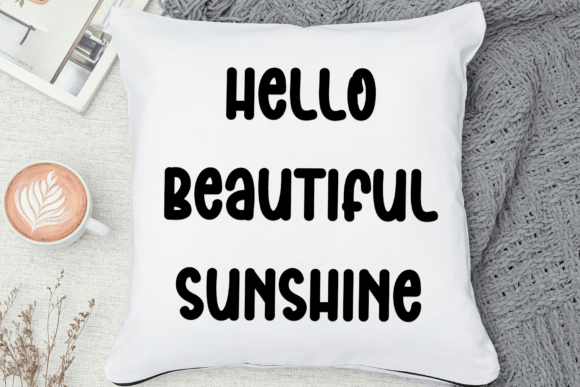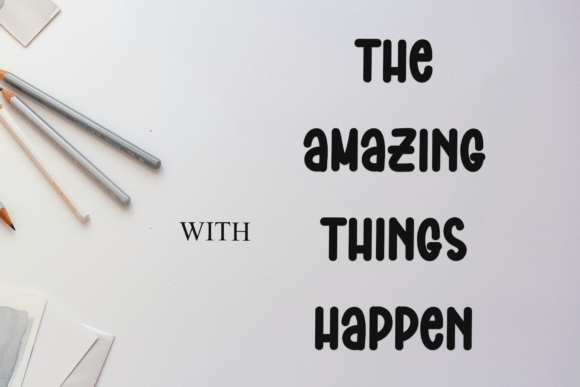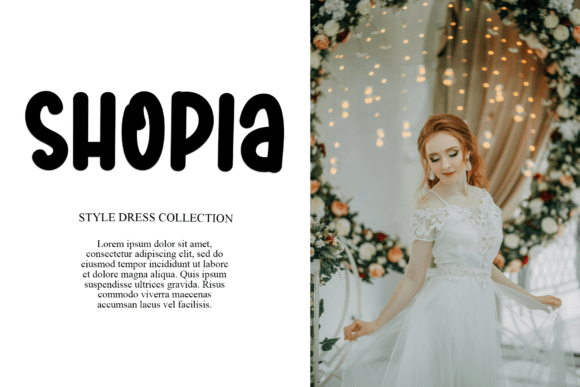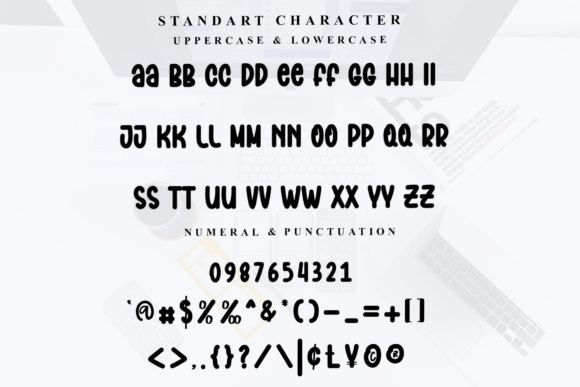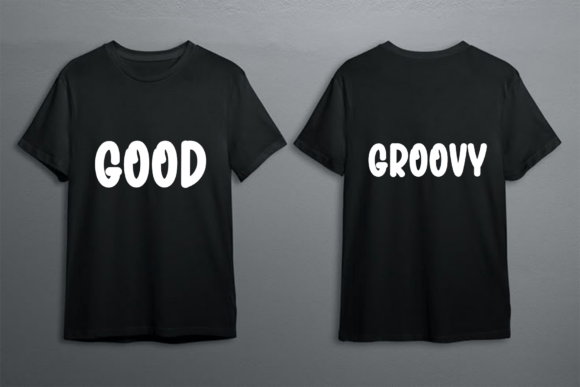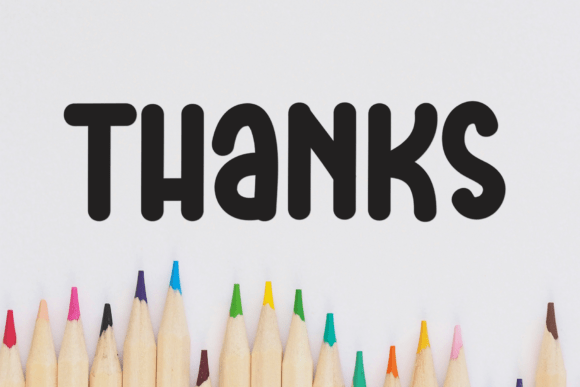
Introducing Booming Font: Elevate Your Designs with a Unique and Eye-Catching Style
In the world of design, fonts play a crucial role in conveying messages, expressing emotions, and creating lasting impressions. If you’re a designer, crafter, or creative enthusiast looking for a font that stands out from the crowd, look no further than Booming Font. This beautiful and eye-catching font is designed with a soft, unique touch that will take your designs to the next level.
The Distinctive Character of Booming Font
Booming Font boasts distinctive strokes that give it a special character, making it both meaningful and versatile for future use. Its unique design ensures that your designs will be remembered and noticed, setting you apart from the competition. Whether you’re working on a design project, craft, or other creative work, Booming Font is the perfect choice.
A World of Creative Possibilities
One of the best things about Booming Font is its versatility. With a wide range of characters, you can experiment with different styles and designs, pushing the boundaries of your creativity. From elegant and sophisticated to playful and fun, Booming Font adapts to your vision, making it an ideal choice for various artistic and creative fields.
As a designer or crafter, you know how important it is to have a font that can keep up with your creative demands. Booming Font is perfect for:
- Design projects: Add a touch of elegance and sophistication to your designs, making them stand out in a crowded market.
- Crafts: Use Booming Font to add a personal touch to your handmade crafts, making them unique and special.
- Digital art: Experiment with different styles and techniques, using Booming Font to bring your digital art to life.
Why Choose Booming Font?
With so many fonts available, why choose Booming Font? Here are just a few reasons:
- Unique and eye-catching design
- Versatile and adaptable
- Perfect for designers, crafters, and creative enthusiasts
- Easy to use and accessible
In conclusion, Booming Font is a game-changer for designers, crafters, and creative enthusiasts. Its unique and eye-catching design, versatility, and seamless compatibility make it an ideal choice for a wide range of creative projects. Whether you’re looking to elevate your designs, add a personal touch to your crafts, or experiment with digital art, Booming Font is the perfect choice. Try it today and discover a world of creative possibilities!